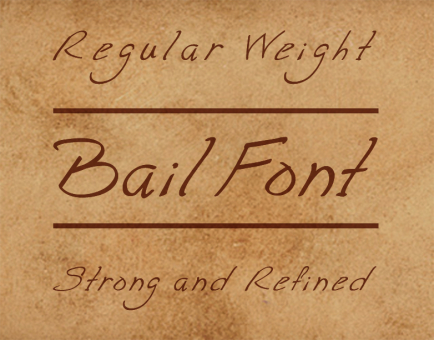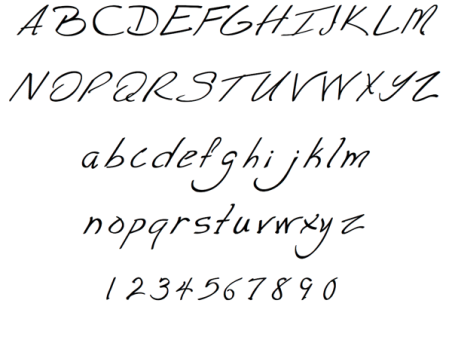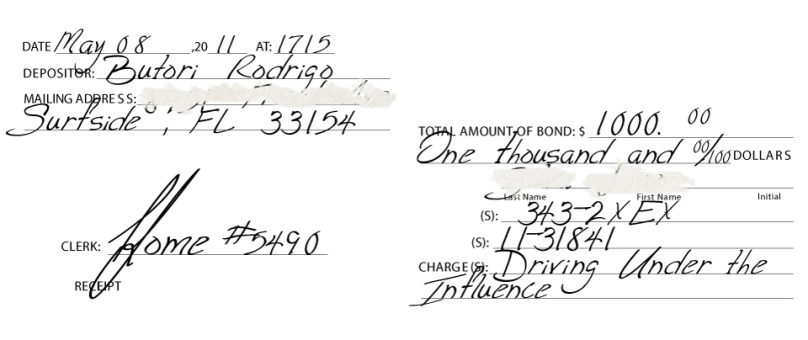
Bail
The Bail font is inspired by the elegant handwriting of a bail bondsman that is strong but refined.
Designer: Gabriel T. Design
Publisher: Gabriel T. Design